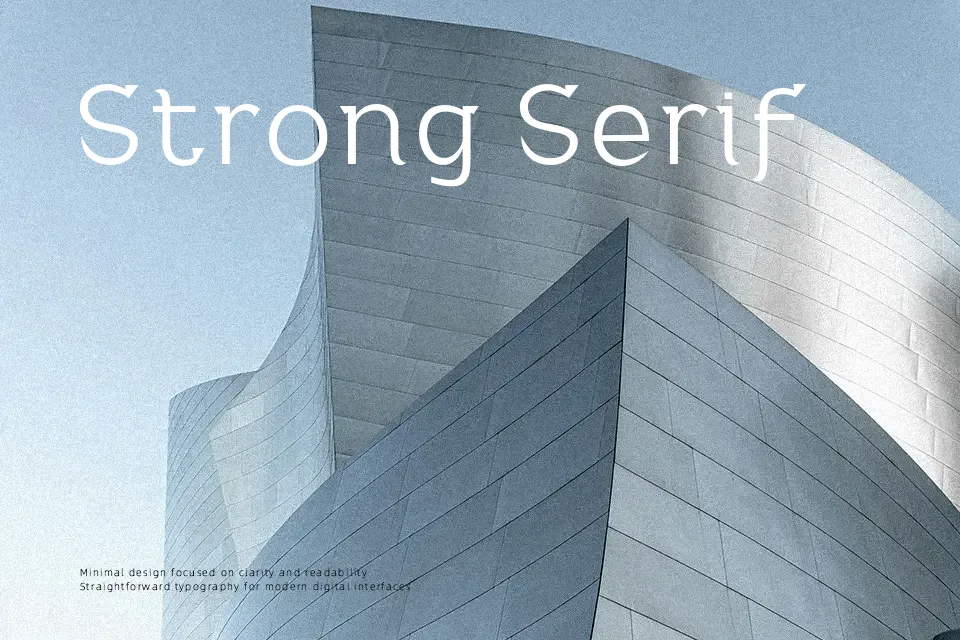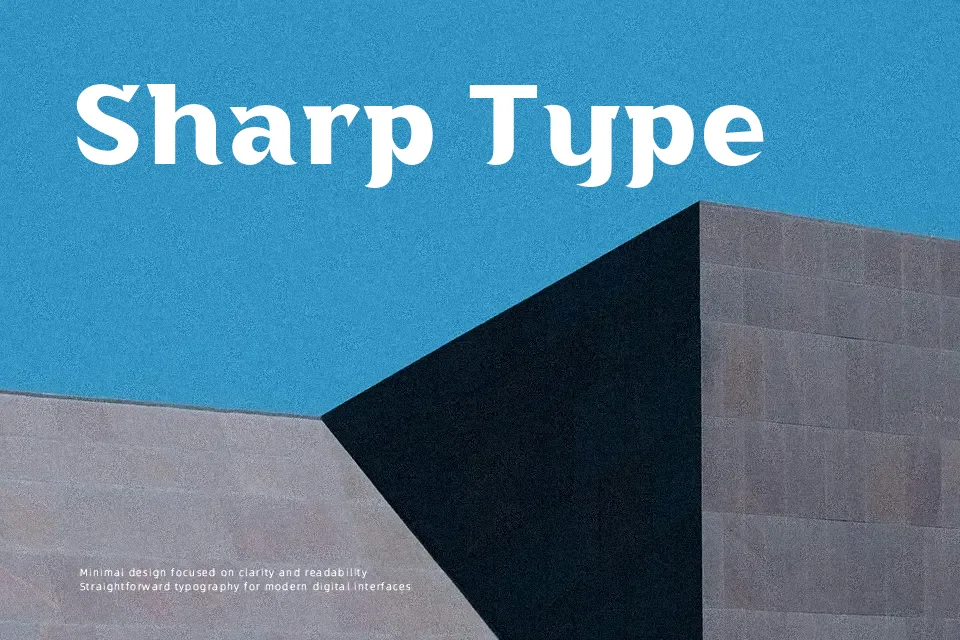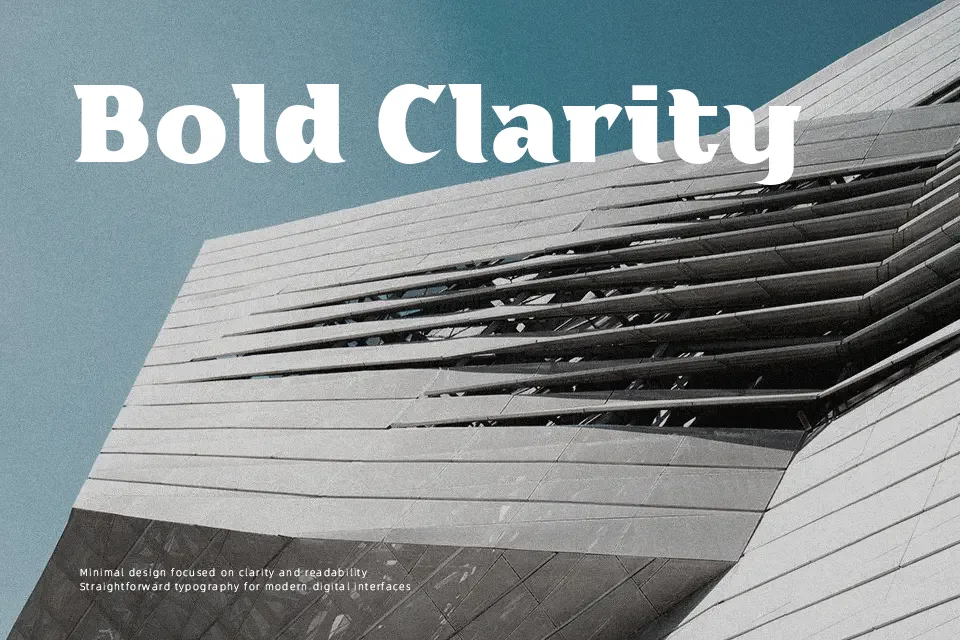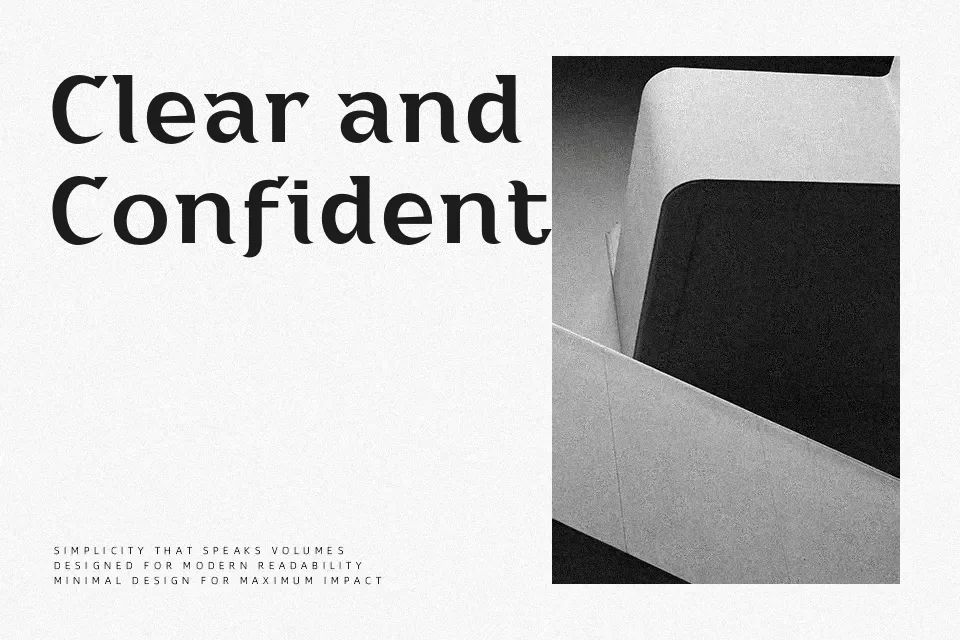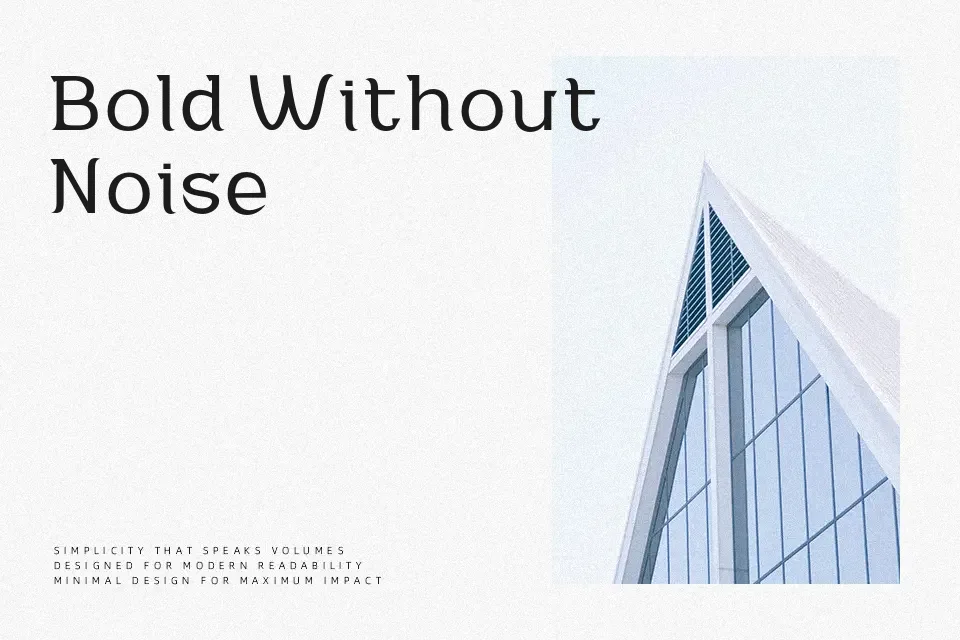
Adahi Font
Adahi doesn’t whisper — its geometric strokes and sharp-meets-rounded corner treatment give it a confident presence that sits somewhere between editorial restraint and luxury branding. The 10-weight range (Thin through ExtraBlack) makes it genuinely versatile across design scales. Lighter weights carry elegance for beauty or cosmetic packaging; heavier cuts own poster headers and apparel logos. The letterforms are minimalist without being sterile, with consistent spacing that holds up well at large display sizes. That said, this isn’t a workhorse font — use it at small body-text sizes and readability breaks down quickly. It’s the right call for a fashion lookbook cover; it’s the wrong call for a product manual.
Best For:- Fashion brand identity and logo lockups
– Beauty and cosmetic product packaging headers
– Editorial magazine covers and feature headlines
– Apparel and lifestyle poster titles
Not Ideal For:- Body text or long-form reading
– Corporate legal or financial documents
– Small-size UI labels or captions
– Contexts requiring informal or playful tone
Perfect for advertising, branding, and editorial, with a bold and display style.